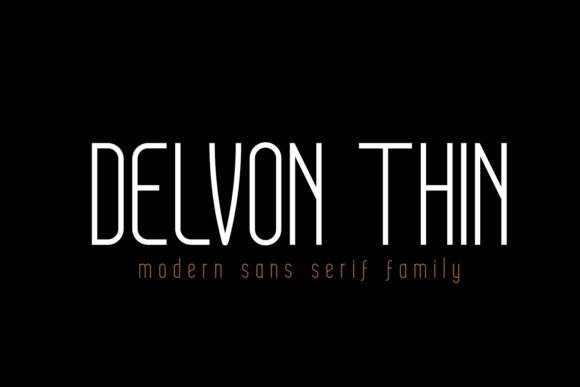
Introducing Delvon Thin, the Sans Serif Font That Embraces Minimalism and Elegance
In a digital world saturated with visual clutter, simplicity and elegance stand out like beacons of clarity. Delvon Thin, a meticulously crafted sans serif font, embodies these qualities, offering a visual experience that is both captivating and understated. Its clean lines, balanced proportions, and subtle curves create a timeless aesthetic that transcends trends and fads.
Delvon Thin is not just another font; it's a gateway to creative expression. Its versatility extends far beyond the confines of traditional typography. Whether you're crafting an eBook, designing a website, or creating social media graphics, Delvon Thin seamlessly adapts to your vision, enhancing your content with a touch of sophistication and clarity.
Imagine your words taking flight, carried by the delicate strokes of Delvon Thin. Each letter, a carefully chiseled masterpiece, dances across the page, inviting your readers to immerse themselves in your narrative. The subtle nuances of Delvon Thin's curves and angles guide the eye effortlessly, creating a reading experience that is both effortless and engaging.
Step into the world of Delvon Thin and unlock a realm of creative possibilities. Let your imagination soar as you explore the endless applications of this remarkable font. From captivating headlines that demand attention to elegant body text that exudes professionalism, Delvon Thin is your trusted companion in the realm of digital storytelling.
With its ability to elevate your designs and captivate your audience, Delvon Thin is more than just a font; it's an investment in your creative journey. Embrace the power of simplicity and elegance, and let Delvon Thin transform your digital creations into works of art.